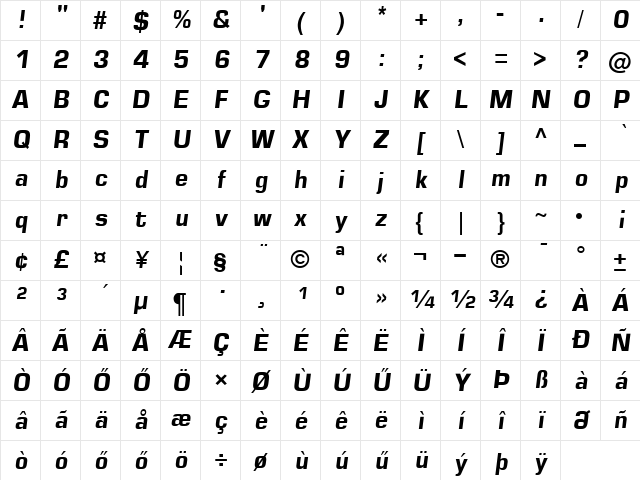
H_Square 721 BoldItalic
Design Context for H_Square 721
H_Square 721 is a composed and adaptable typeface that performs quietly and consistently across a wide range of design contexts. The slanted form adds forward momentum and visual energy. Its bold stroke weight gives it real presence on the page.
Pro Tip: Use H_Square 721 for emphasis, pull quotes, and subheadings where its slanted energy can add rhythm to the layout.